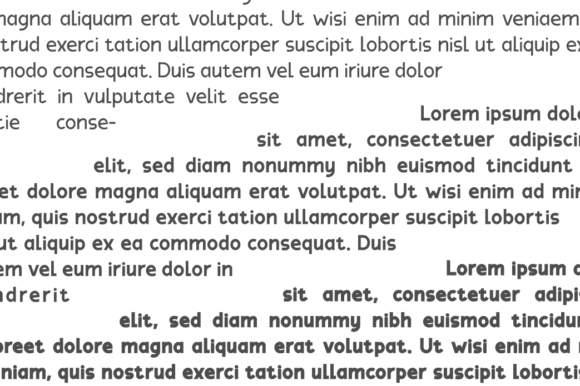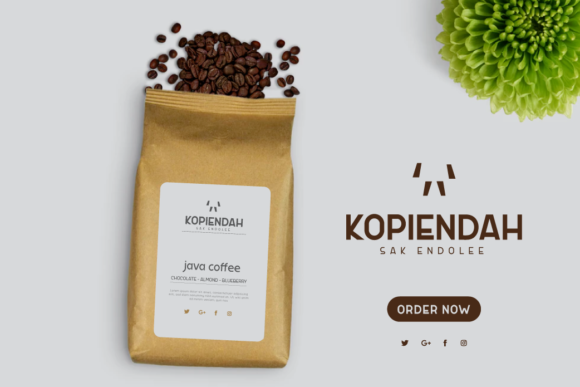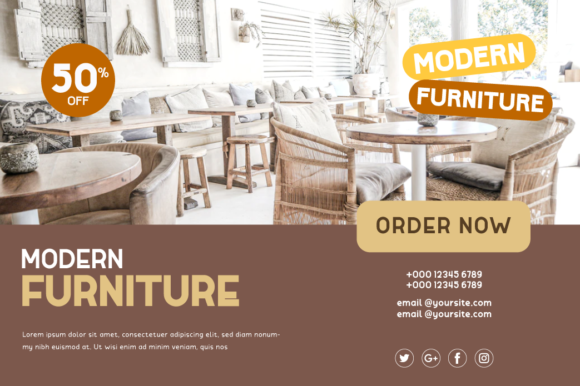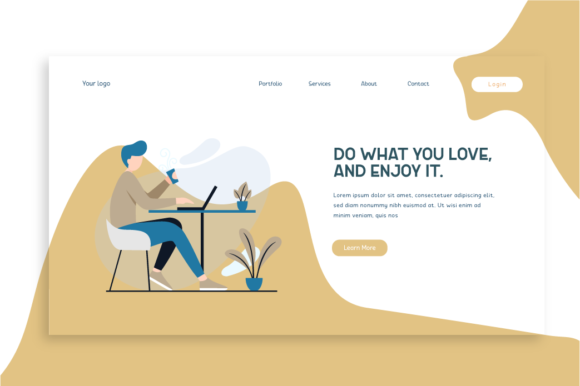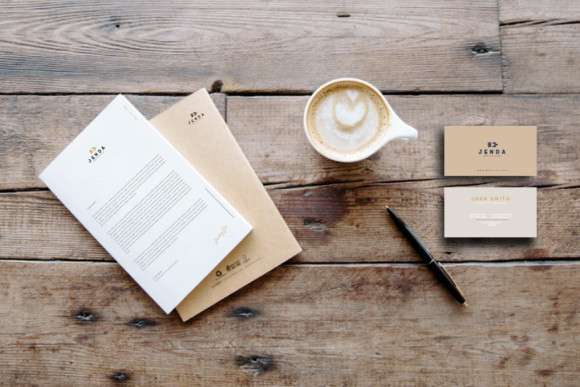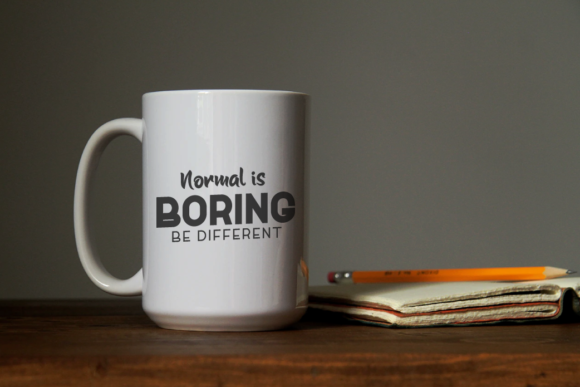
Discover the Timeless Charm of Abesif Font
Have you ever been working on a design project, pouring your heart and soul into every detail, only to feel like something’s missing? You’ve got the perfect color palette, a clever composition, and engaging visuals, but it just doesn’t quite pop? That’s where Abesif Font comes in – a simple and classic sans serif font that can elevate your creative ideas to the next level.
Abesif Font is more than just a typeface; it’s a tool that can add a touch of sophistication and elegance to your designs. Whether you’re a seasoned designer or just starting out, this versatile font is sure to become a trusted companion in your creative journey. Its clean lines, precise typography, and subtle flair make it an ideal choice for a wide range of projects, from logos and branding to digital graphics and publications.
Abesif Font Key Features
- Font Family: Abesif Font is a unique, high-quality font family with a modern and elegant design.
- Unique Characteristics: Features a distinctive, hand-drawn feel with subtle texture and intricate details, making it perfect for creative projects.
Abesif Font Review
Abesif font is an interesting choice for designers. One of the things that works well is its unique, modern aesthetic ✨. The font’s clean lines and geometric shapes give it a sleek, contemporary look that’s perfect for modern branding and digital projects. Additionally, Abesif font comes in a variety of weights, from light to bold, making it versatile and easy to use in different contexts.
- Unique, modern aesthetic ✨
- Versatile with multiple weights
- Suitable for modern branding and digital projects
However, there are some limitations to consider ⚠️. One of the main concerns is that Abesif font can be difficult to read at smaller font sizes. The letters may become distorted or lose their clarity, which can be a problem for projects where text is the primary focus. Additionally, the font’s design may not be suitable for all types of content, such as formal or traditional documents.
Overall, Abesif font is a solid choice for designers who want a modern, edgy look. While it may not be the best option for every project, it’s definitely worth considering for those looking to add some visual interest to their designs.
Tips for Getting the Most Out of Abesif Font
Abesif Font is a versatile and stylish font that can be used in a variety of design projects. To get the most out of it, try using it in bold or italic styles to add emphasis to your text. You can also experiment with different font sizes and colors to create a unique and eye-catching design.
Abesif Font is commonly used in graphic design projects, such as logos, brochures, and business cards. It’s also suitable for presentations, documents, and other types of digital content. The font’s modern and sleek design makes it an excellent choice for creating professional and stylish designs.
Alternatives to Abesif Font for Designers
Monserrat Font is a sans-serif font that originated in Argentina. It’s a great alternative to Abesif Font for designers who want a clean and modern look. Montserrat Font is more geometric and has a strong grid system, making it perfect for headings and titles.
Compared to Abesif Font, Montserrat Font has a more minimalist and urban feel, which is ideal for digital products and modern branding.
Open Sans Font is a popular sans-serif font that’s highly legible and versatile. It’s a great alternative to Abesif Font for designers who want a font that’s easy to read and works well in various contexts. Open Sans Font is more rounded and has a friendly feel, making it perfect for body text and paragraphs.